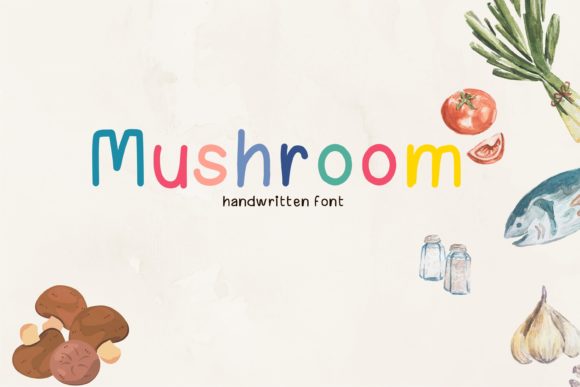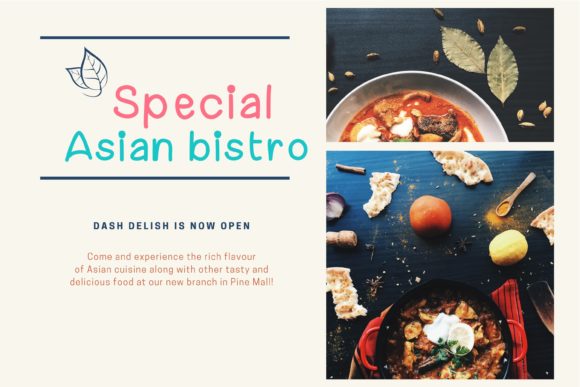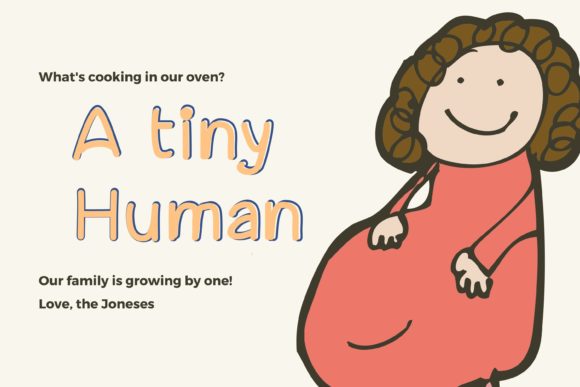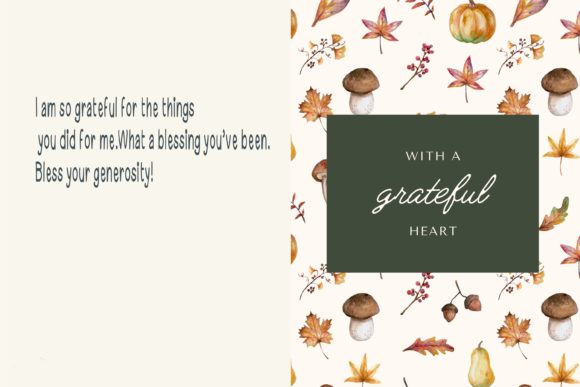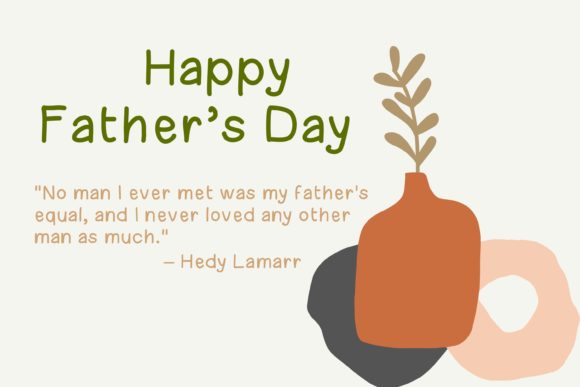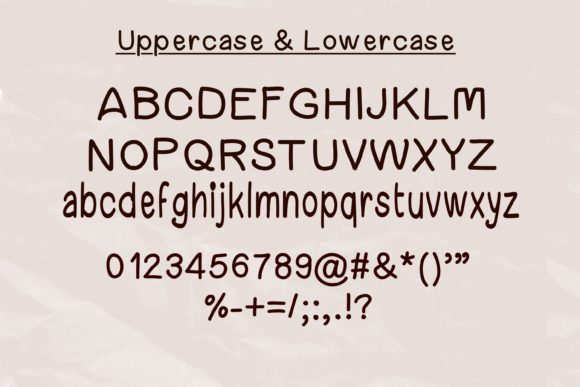
Mushroom Font
About Mushroom Font
Mushroom is a cute handwritten font that can be used for all chalkboard quotes or teaching material! Its authentic look and feel will add a personal and realistic feel to your designs.